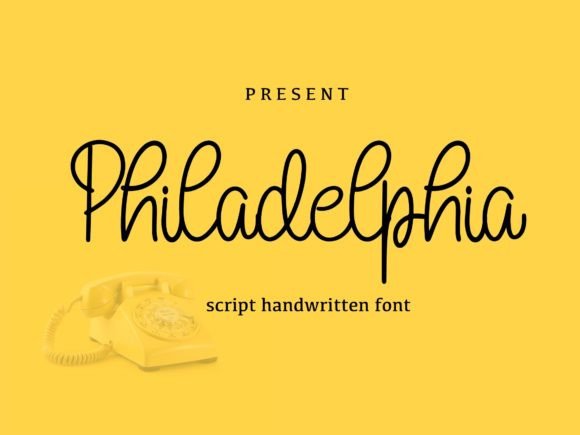
Philadelphia Font
Meet Philadelphia - the script font that will transform your designs into works of art. With its delicate curves and elegant flourishes, this font exudes sophistication and charm, making it the perfect choice for any project that demands a touch of class.
Let Philadelphia introduce you to boundless possibilities. Whether you seek to create unforgettable logos that leave a lasting impression, design invitations that captivate your guests, or craft enchanting wedding designs that set the perfect ambiance, this font will be your trusted companion. It's the secret ingredient for creating social media posts that stand out from the crowd and branding materials that radiate professionalism and style.
Imagine your clothing brand adorned with the allure of Philadelphia. The delicate curves of each letter will dance across your designs, adding a touch of grace and elegance that will make your products irresistible. Let Philadelphia be the key to unlocking your brand's true potential, attracting customers with its timeless appeal and leaving them with a lasting impression that will keep them coming back for more.
Dive into the world of Philadelphia and let your imagination soar. With its unmatched beauty and versatility, this font will empower you to create designs that captivate and inspire. Embrace the charm of Philadelphia and elevate your projects to new heights of excellence.